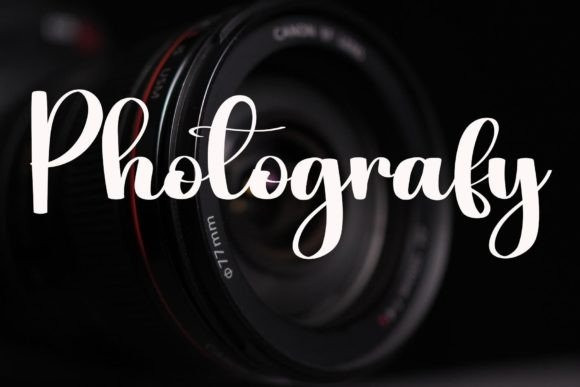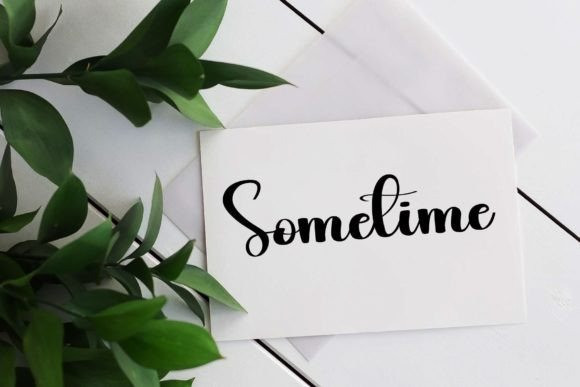
Anythink Script Font
Anythink Script Font, is a sweet handwritten font. Featuring characters that dance along the baseline, this font will add a luxury spark to any design project you wish to create!